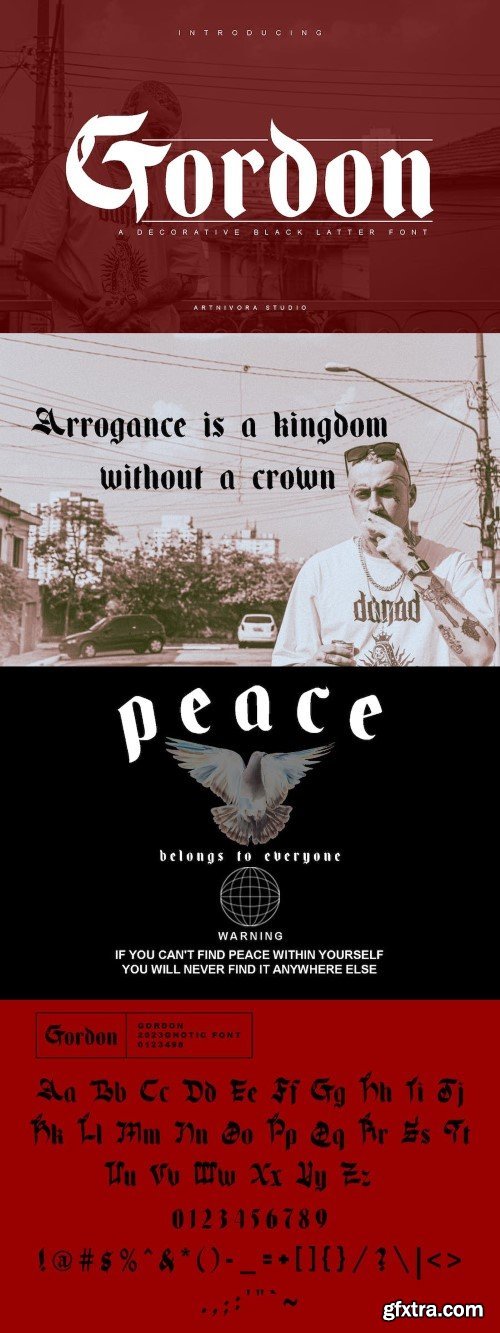
郭ordan - 黑体字
Introducing Gordon, a simple modern blackletter font. So perfect for you who needs a typeface for logo designs, magazine, social media, brochure, and many more.